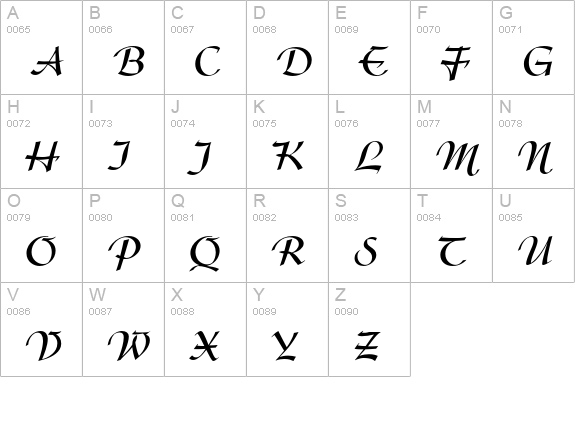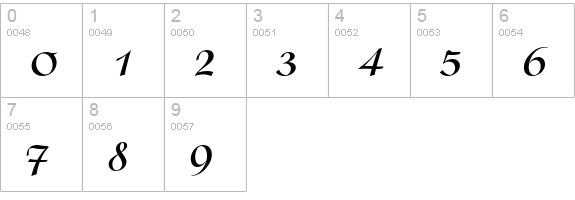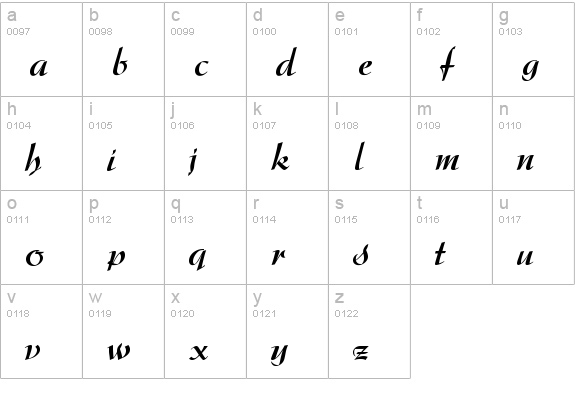
Arkona Medium is a balanced, medium-weight variant in the Arkona typeface family \xE2\x80\x94 well suited to sub-headlines, navigation, and balanced editorial work.
Arkona Medium is a versatile and modern typeface that effortlessly combines elegance with readability. With its clean lines and balanced proportions, this font is suitable for a wide range of design projects, from branding to editorial design and beyond. The medium weight strikes the perfect balance between boldness and sophistication, making it a go-to choice for designers looking to make a statement. The best part? Arkona Medium is available for free download at FontsMarket.com, making it accessible to designers of all levels. So whether you're working on a logo, a website, or a print layout, Arkona Medium has got you covered with its timeless appeal and versatility. Download this font today and elevate your designs with its refined aesthetic.